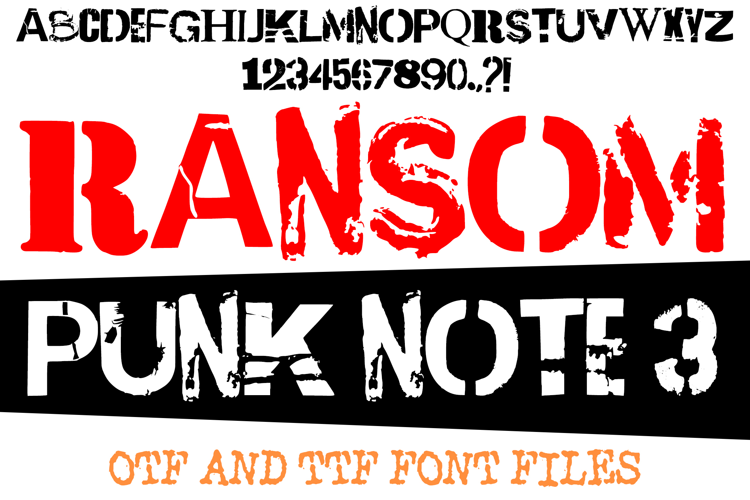
Ransom Punk Note 3 Distressed Lettering ABC Font Typography
Ransom Punk Note 3 is a bold ransom-note inspired font with a rough, distressed grunge style. Its chaotic cut-and-paste lettering is perfect for projects that need raw energy, underground vibes, and rebellious character. Inspired by punk flyers, zines, and street posters, this typeface makes a powerful visual statement.
Ideal for album art, band merchandise, alternative fashion, horror designs, tattoos, stickers, and bold branding, Ransom Punk Note 3 adds attitude and grit to any project. Its handmade, edgy texture creates a unique look that stands out from traditional fonts.